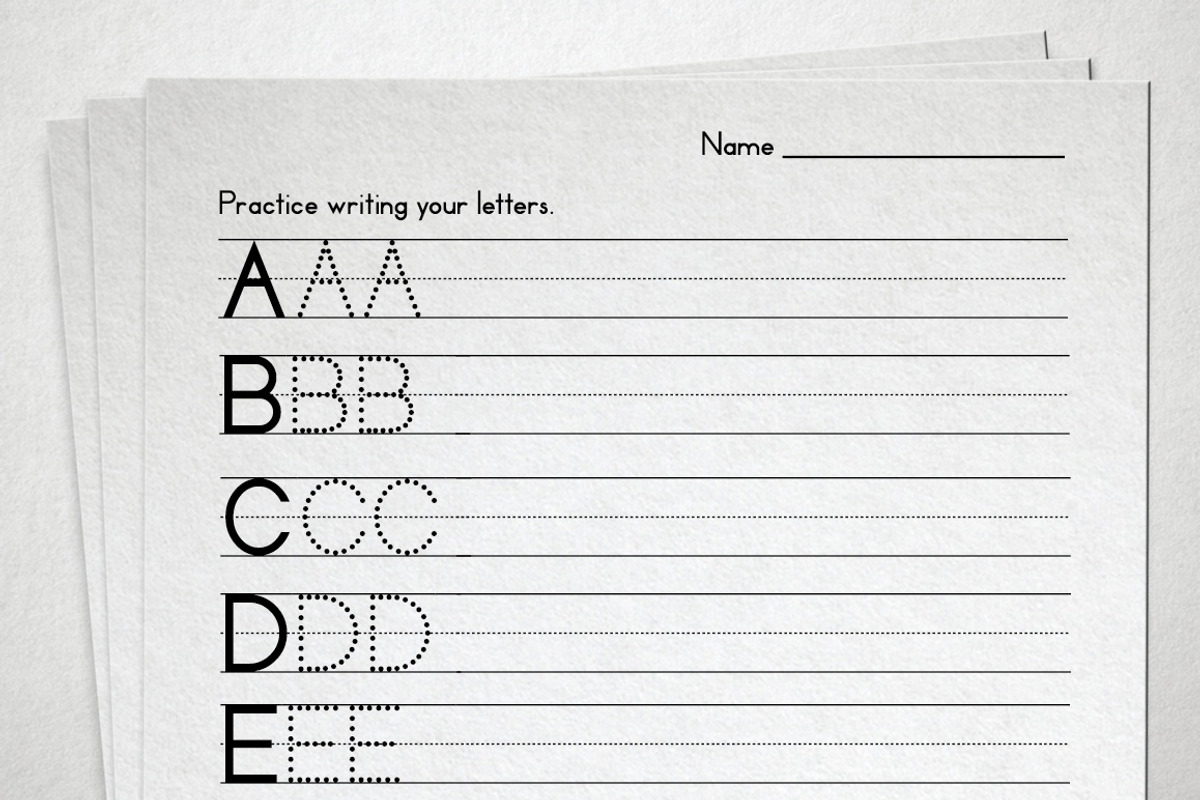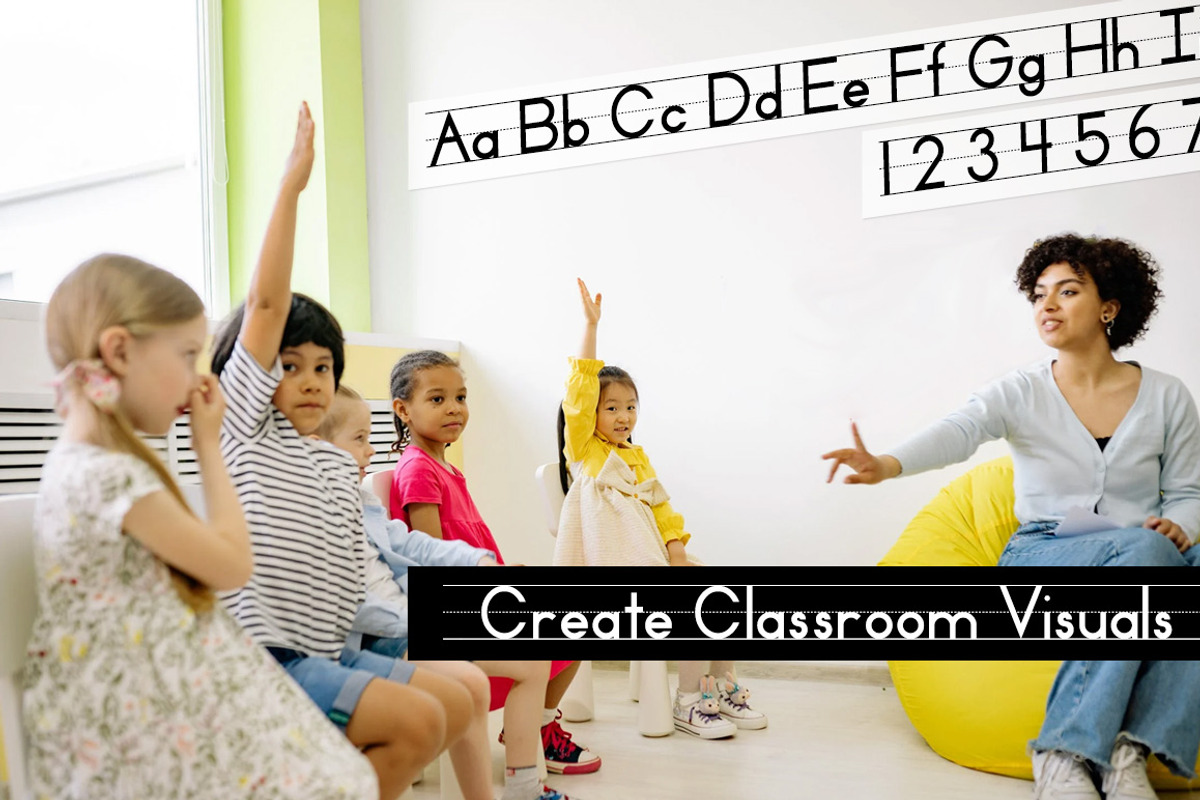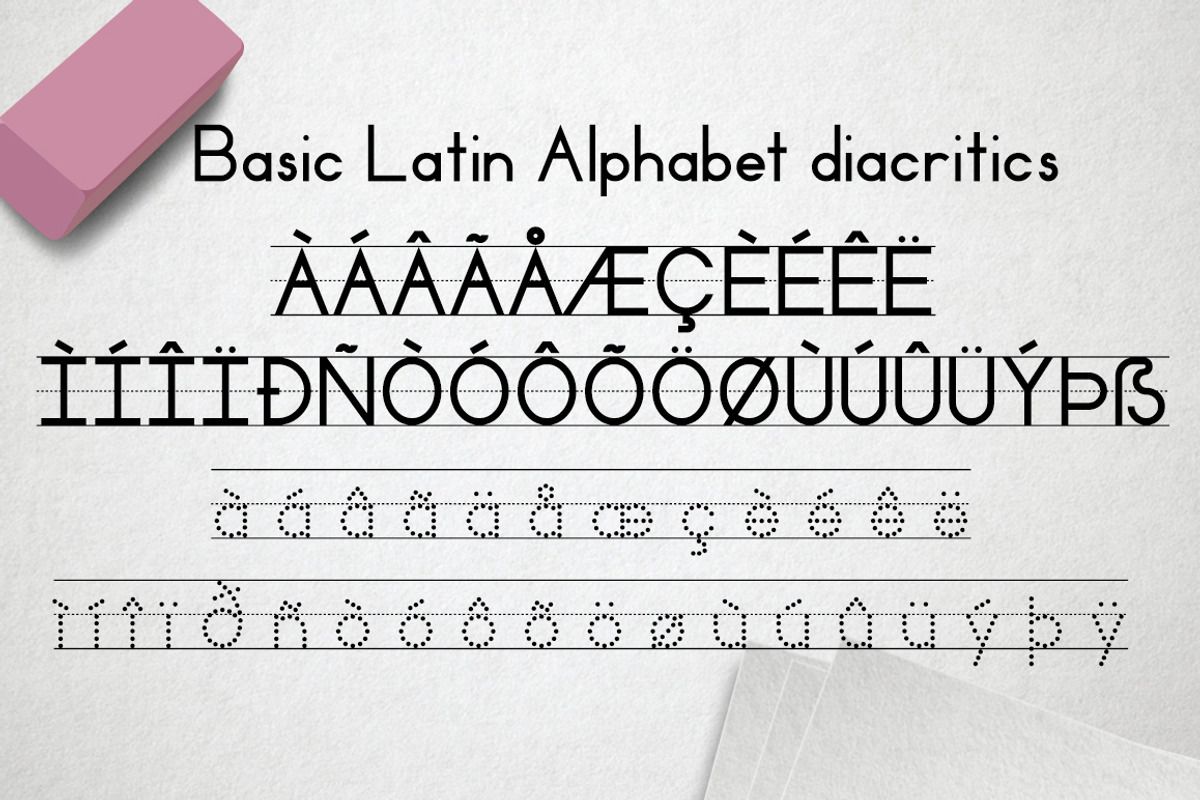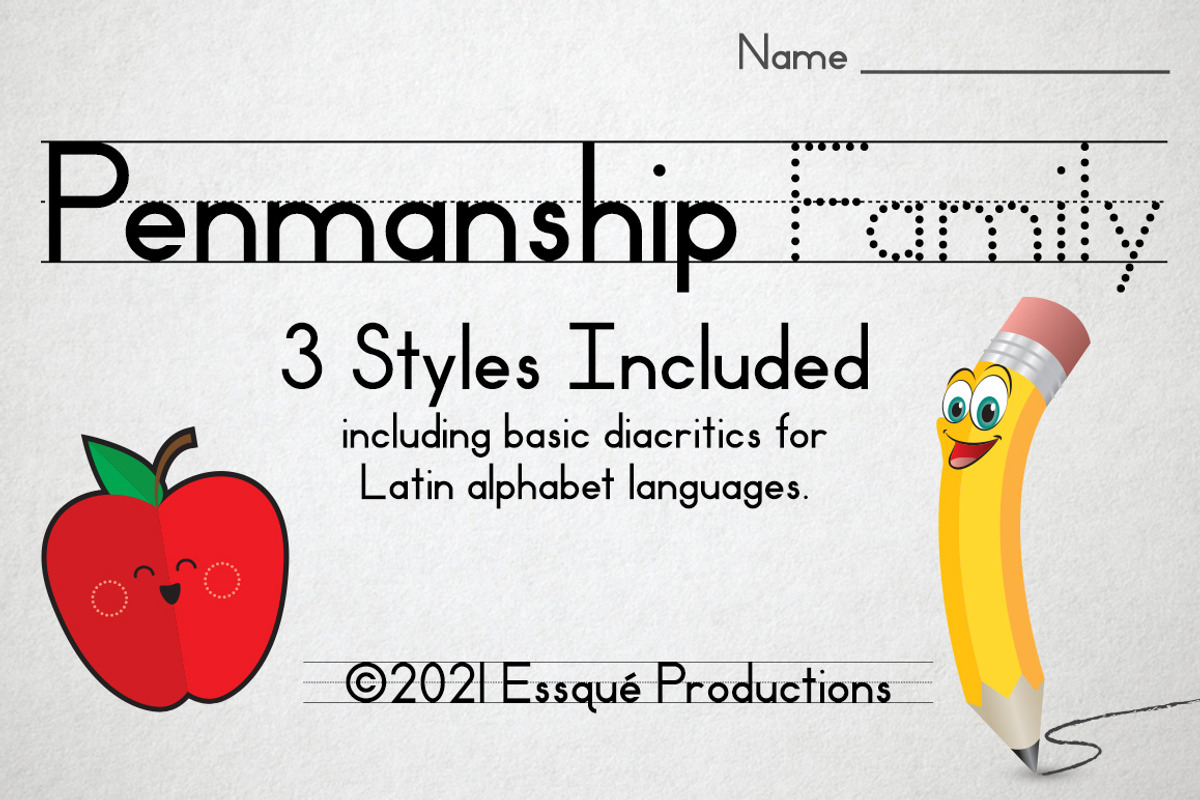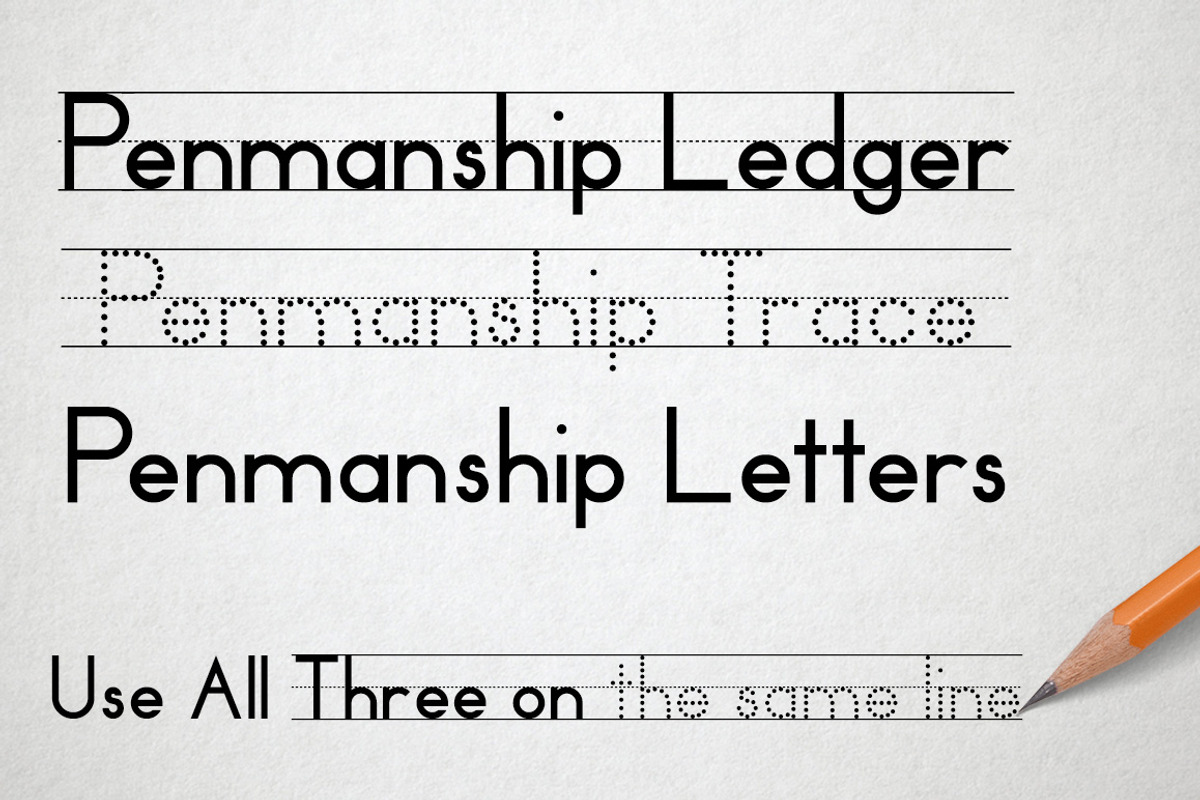
Penmanship Family
Use the font to create scholastic advertising or classroom visual aids and worksheets. Three fonts have identical spacing so they are interchangeable. Great for traditional and homeschool class use.
Penmanship Letters: all plain characters Penmanship Ledger: characters contained within ledger lines Penmanship Trace: tracing dot form of letters on ledger lines
Spacebar adds regular space between words/letters. Ledger fonts can add a connecting space between letters/words by using the underscore (_).